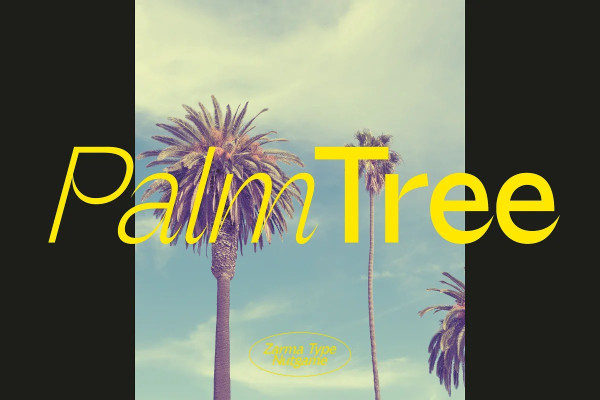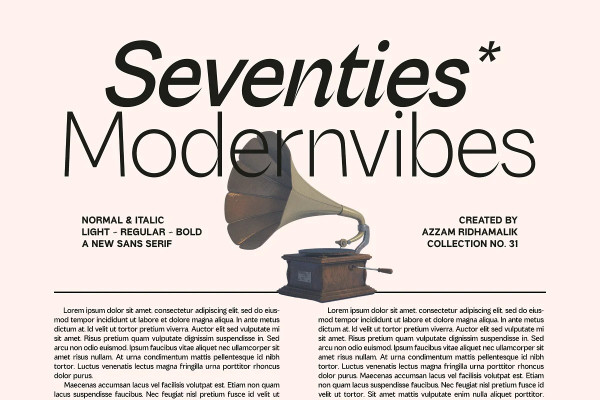
Nutgame Font
Nutgame Font, a versatile Sans Serif font designed to elevate your designs. With two styles, normal and italic, each offering three font weights (light, regular, and bold). This font provides a wide range of possibilities for your projects. Embodying a modern appeal with a touch of 70s retro flair, Nutgame exudes a captivating and nostalgic vibe that is perfect for adding a unique and memorable twist to your creative works. Whether used for branding, headlines, or editorial designs, Nutgame Font will bring a fresh and dynamic edge to your visuals, making it a must-have addition to your font collection.